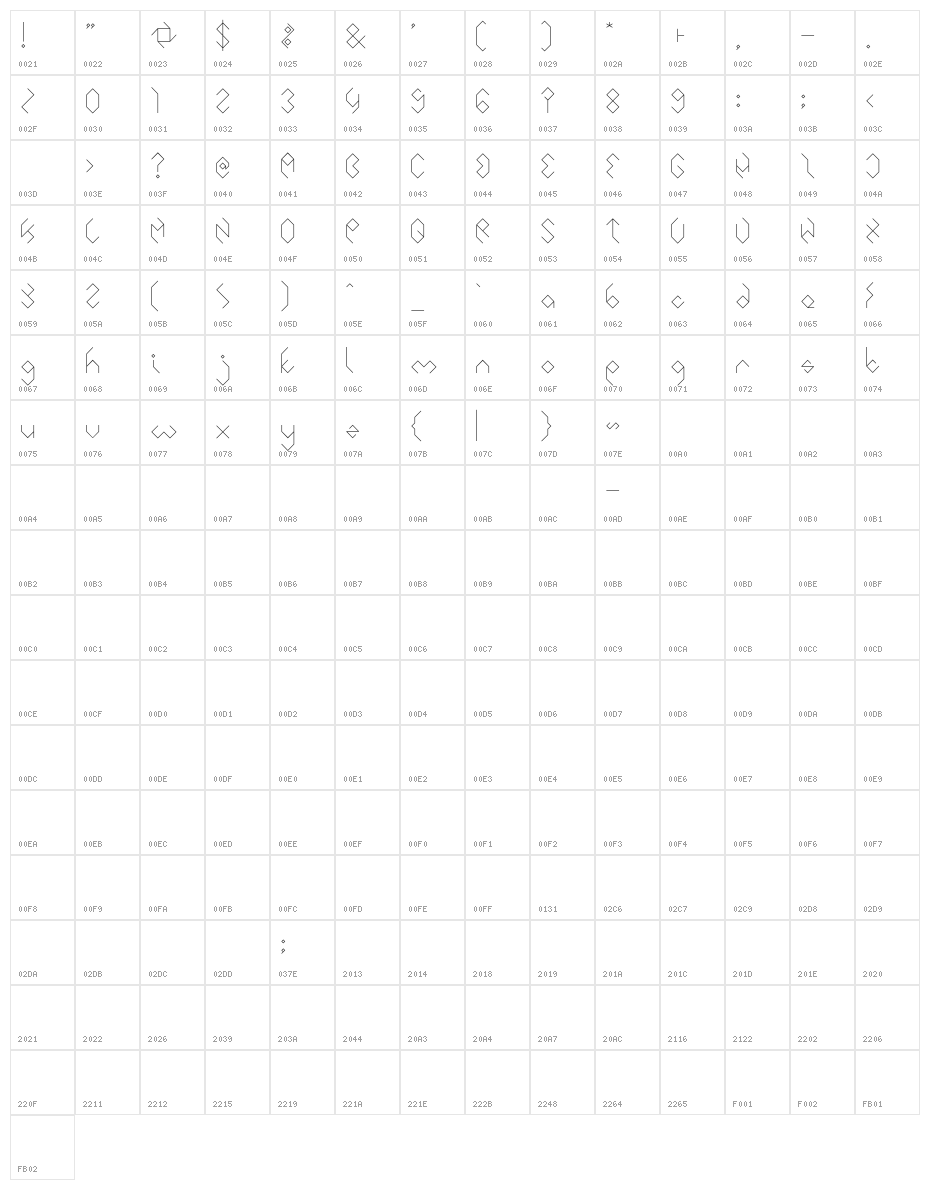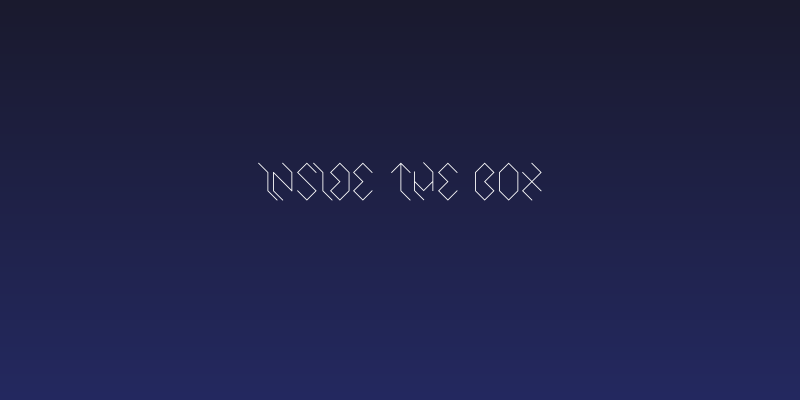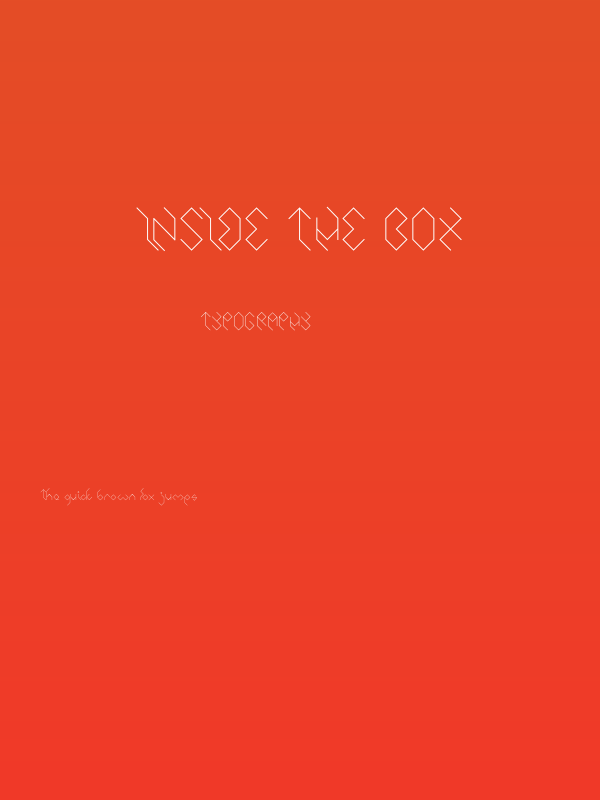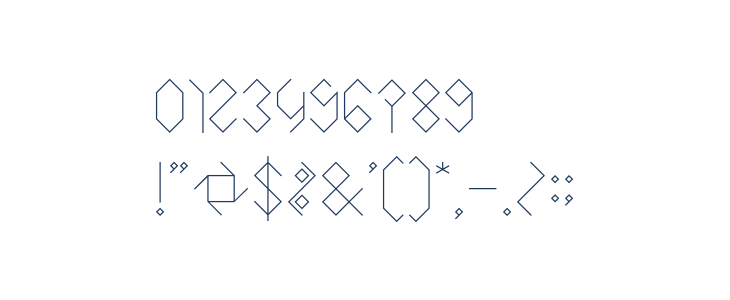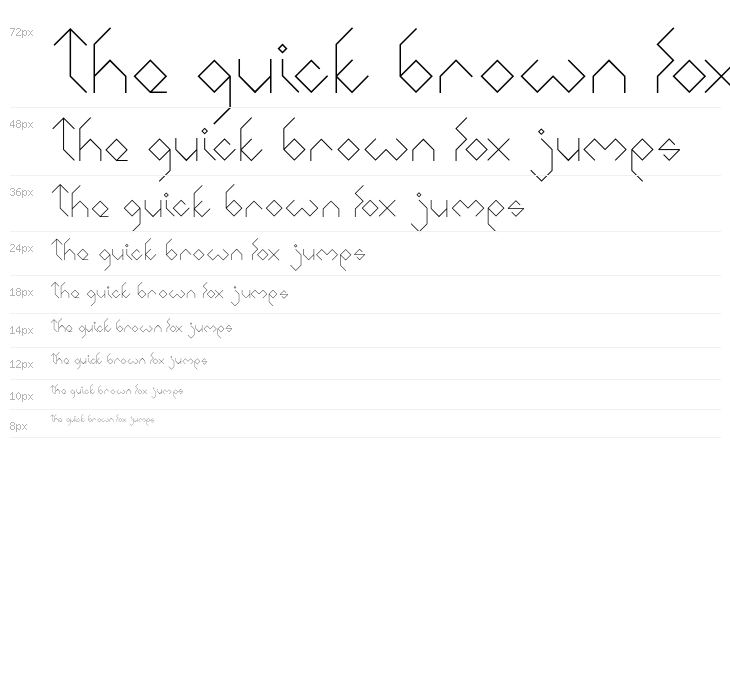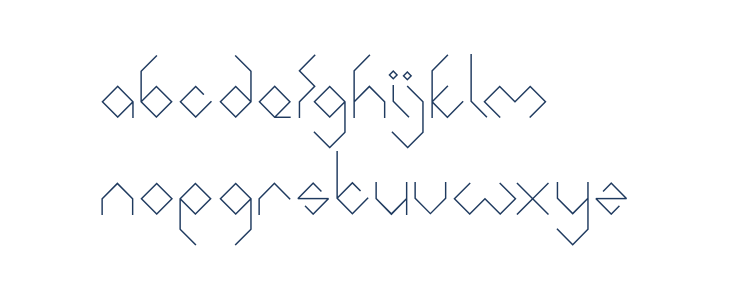
INSIDE THE BOX Font
INSIDE THE BOX Description
This font features a geometric, angular design with a distinct, futuristic aesthetic. Each character is constructed with straight lines and sharp angles, creating a sense of precision and modernity. The uppercase and lowercase letters maintain a consistent style, with unique variations that add visual interest. Numbers and special characters follow the same angular theme, ensuring uniformity across all glyphs. The overall appearance is clean and minimalistic, making it suitable for projects that require a contemporary and edgy look.
| Proposed Projects | Ideal for sci-fi themed designs, modern branding, tech-related projects, and digital artwork. |